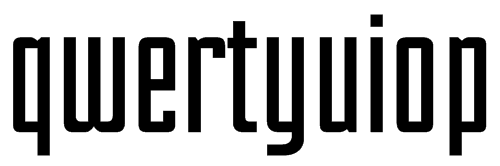
A narrow display font designed in 1995 by Vincent Connare. Only contains the ASCII character set.
Styles & Weights | Vixar ASCI |
Designers | Vincent Connare |